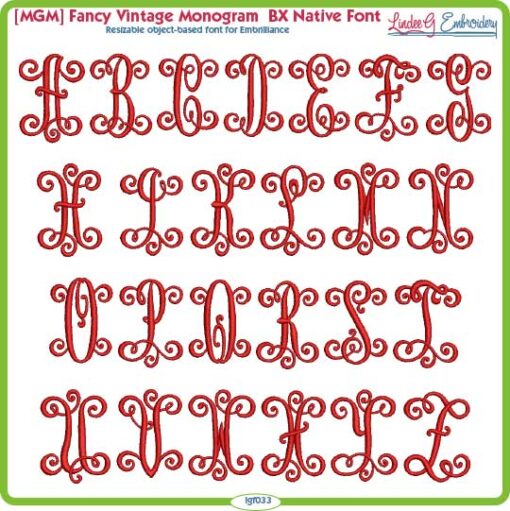
Resizable fancy vintage monogram. Includes uppercase only.This is a manually digitized object-based BX keyboard alphabet file and requires Embrilliance Essentials. Use appropriate underlay and compensation for your project.